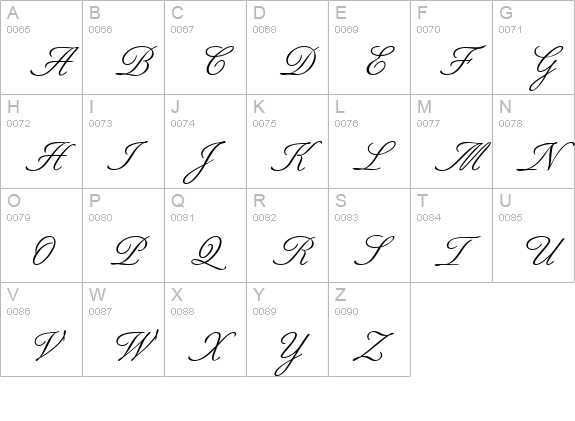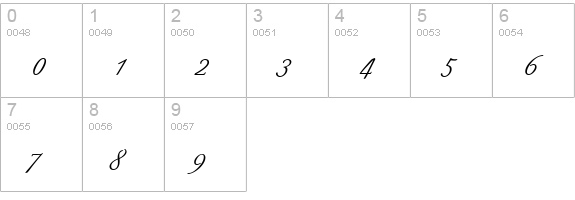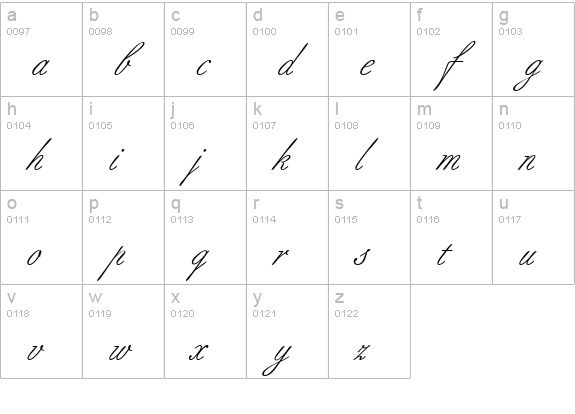
B690-Script-Regular Font Details
B690-Script-Regular is the standard, neutral variant in the B690 typeface family \xE2\x80\x94 well suited to general body text, paragraphs, and standard typographic work.
B690 Script Regular font is a beautifully designed typeface that exudes elegance and sophistication. Its flowing cursive style evokes a sense of luxury and refinement, making it perfect for a wide range of creative projects. Whether you are designing invitations, branding materials, or packaging, this font will add a touch of class to your work. One of the best things about B690 Script Regular font is that it is completely free to download. You can easily access this stunning typeface at FontsMarket.com, where you can download it and start using it in your projects right away. Don't miss out on the opportunity to enhance your designs with this exquisite font that will surely make a lasting impression.